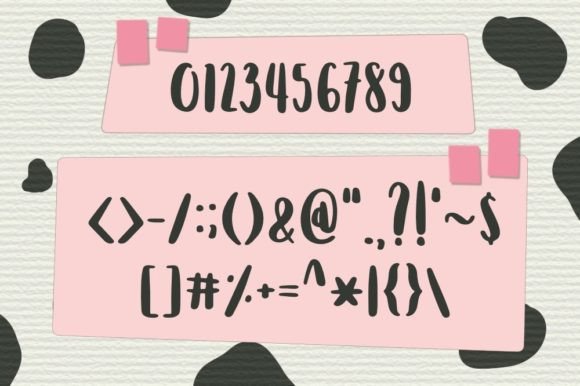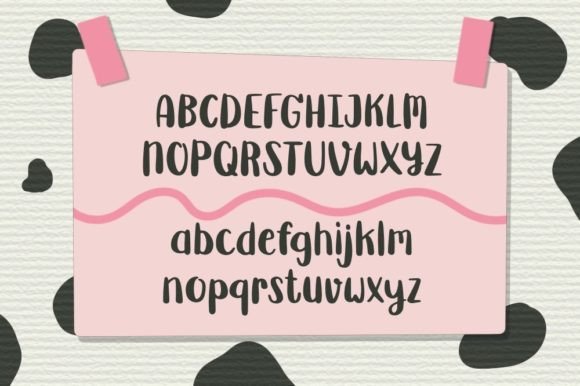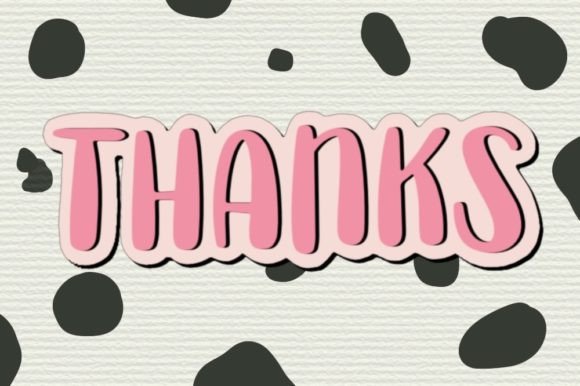
Lazydog Font
About Lazydog Font
Lazy Dog is a cute and playful handwritten font.
Whether you’re using it for making notes, crafts, digital design, presentations, titles, logos, or making greeting cards, this font has the potential to become your favorite go-to font, no matter the occasion!